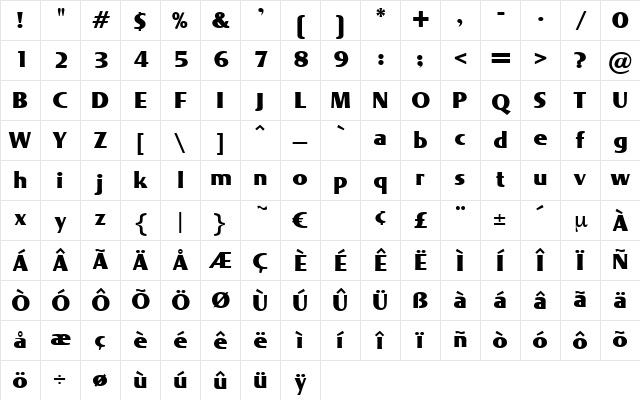
Isfahan Regular
Complete Isfahan Regular glyph index. Displaying only characters natively supported by Isfahan Regular font.
Design Context for Isfahan
Isfahan is a composed and adaptable typeface that performs quietly and consistently across a wide range of design contexts.